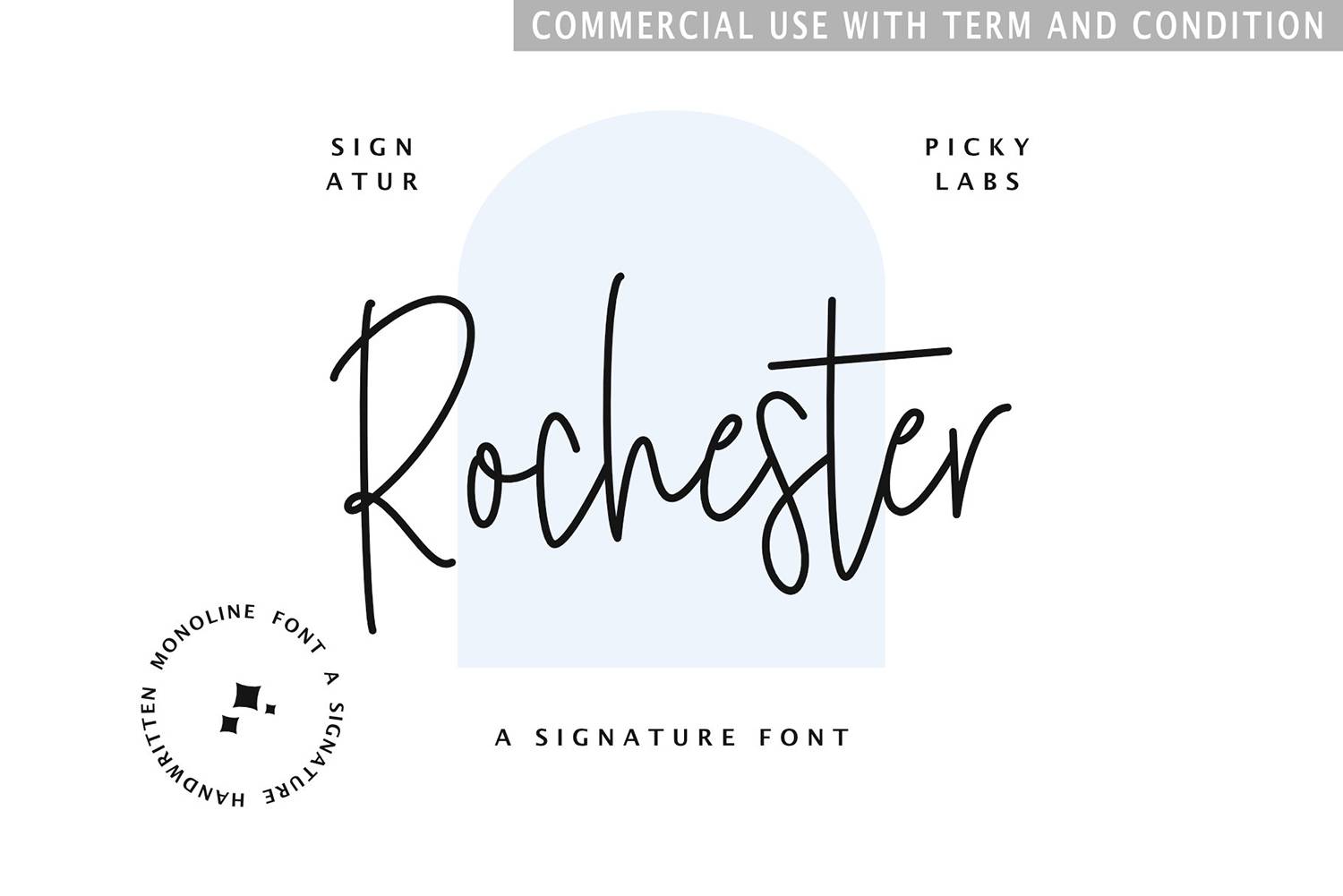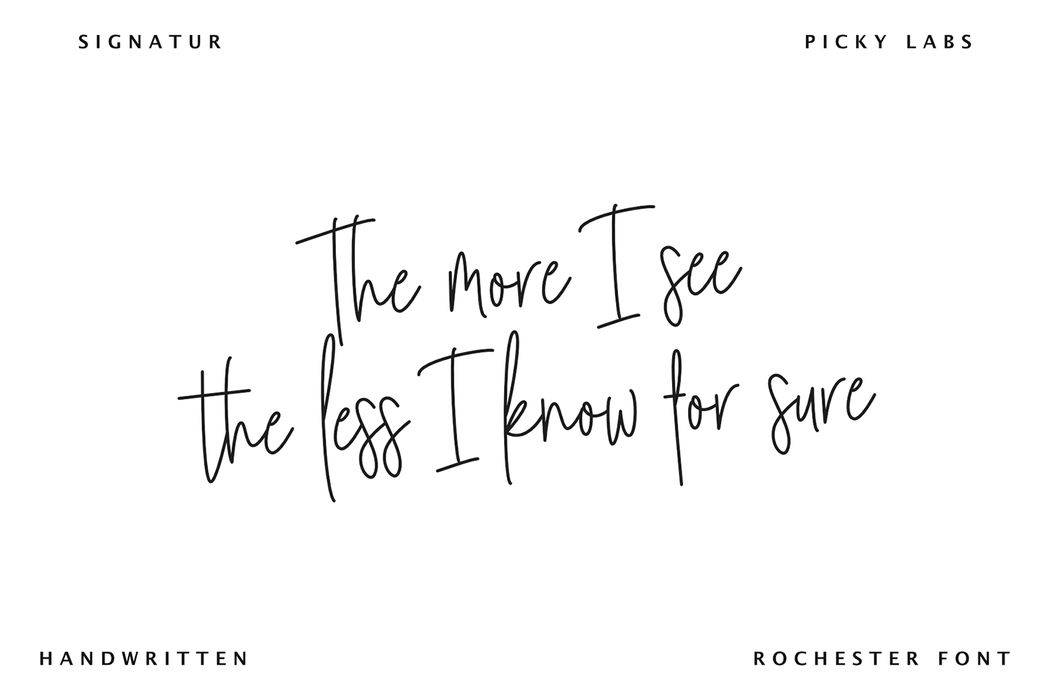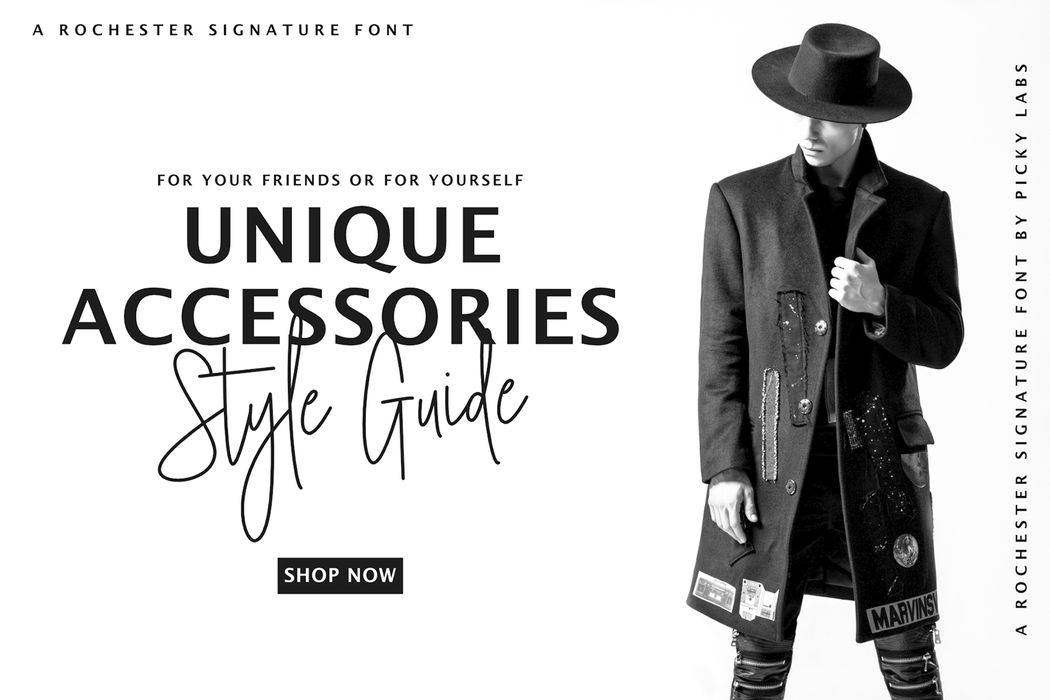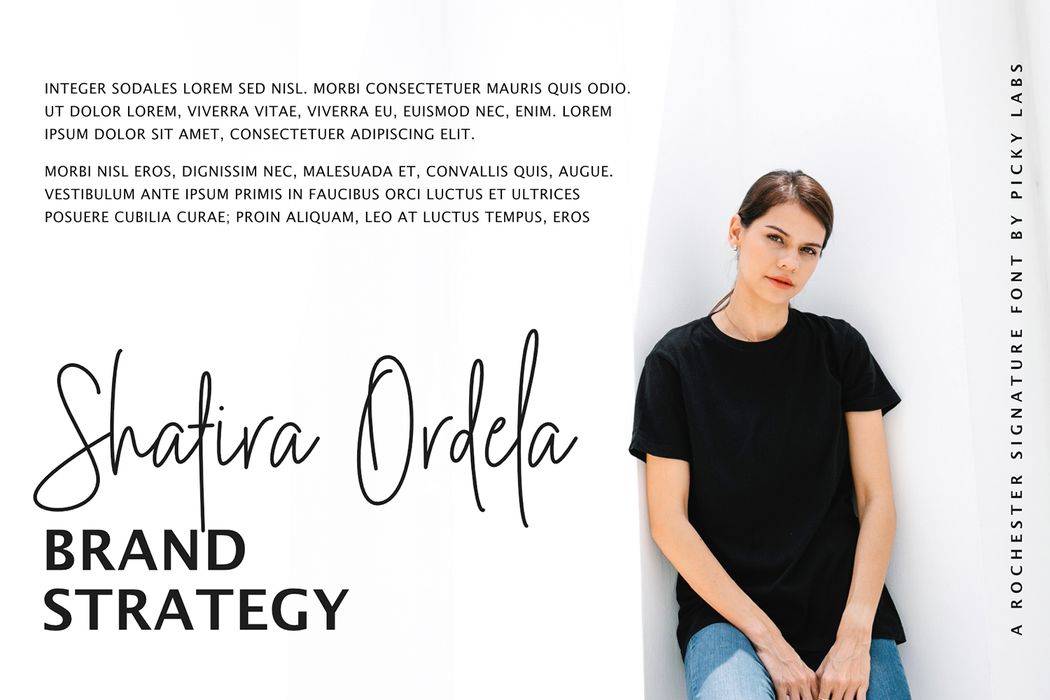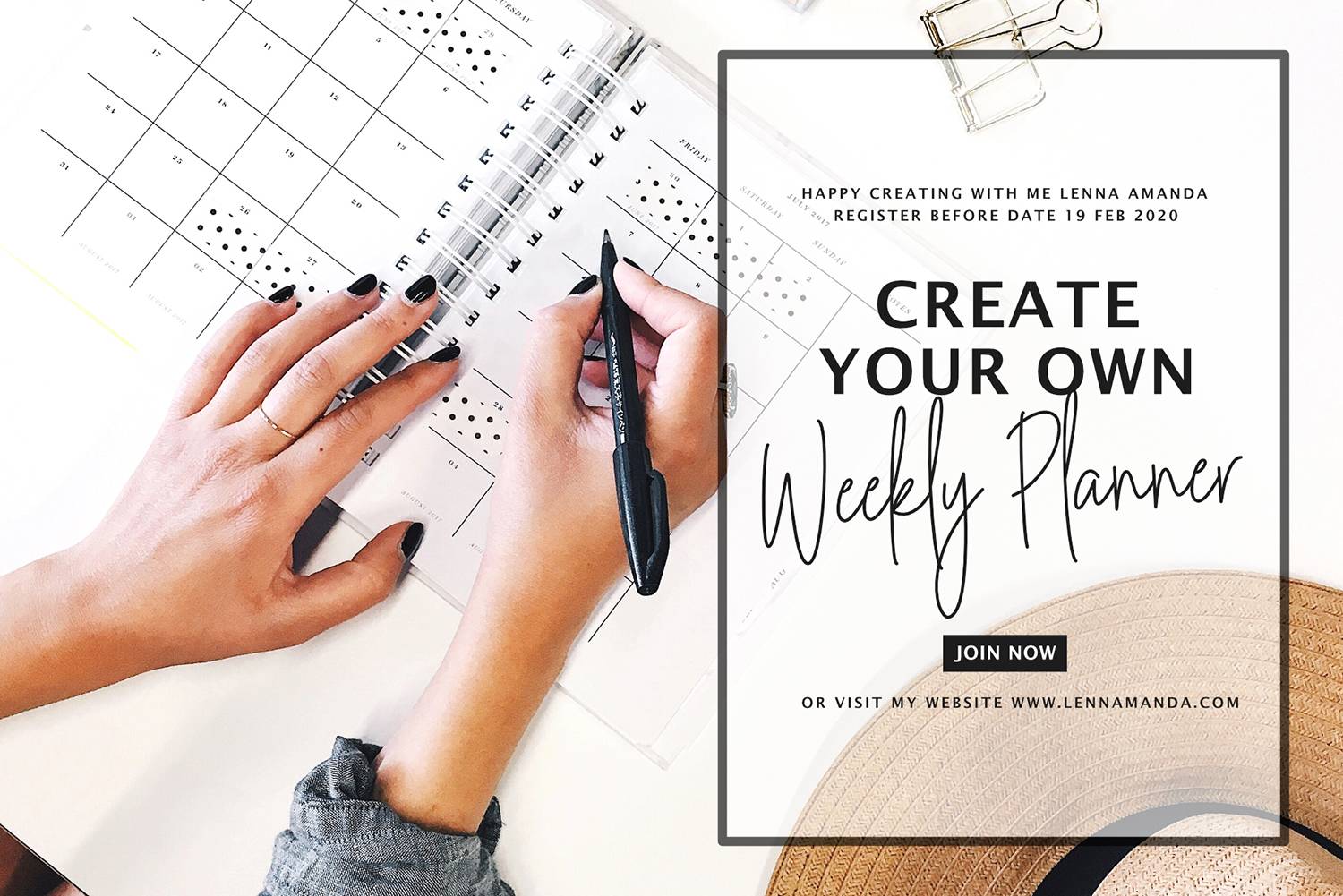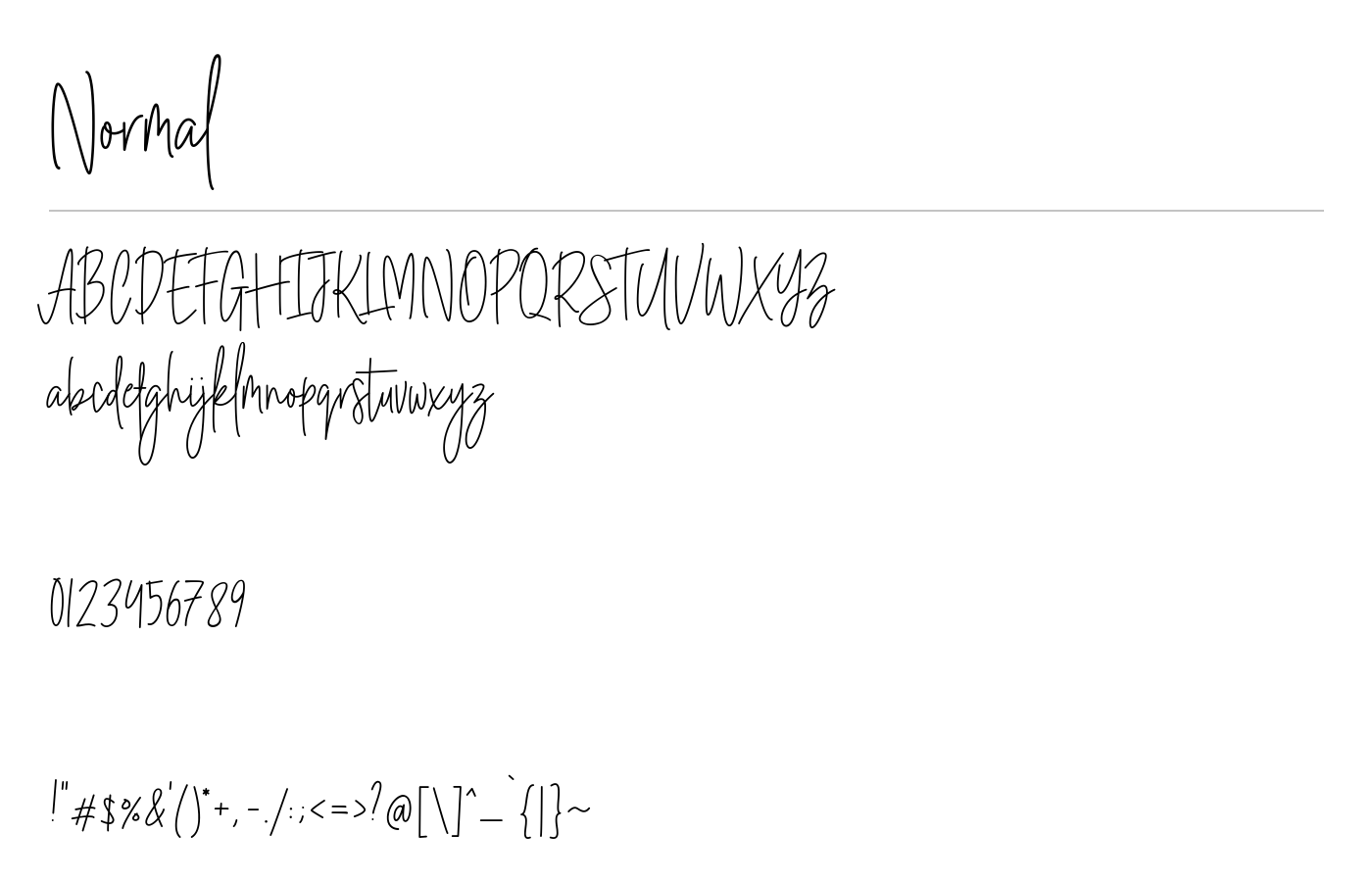
Rochester Signature Font is a delicate, elegant handwritten script with tall, slender letterforms that mimic natural pen strokes. Its thin weight and irregular, flowing lines give it a personal, sophisticated feel, perfect for branding, invitations, and creative projects that seek a refined yet casual touch. This font works best in headlines and decorative text where its unique signature style can stand out beautifully.
Rochester Signature Font
About Rochester Signature Font
| Font family | Rochester Signature Font |
| Release date | 2021-12-19 |
| Designer | Picky Labs |